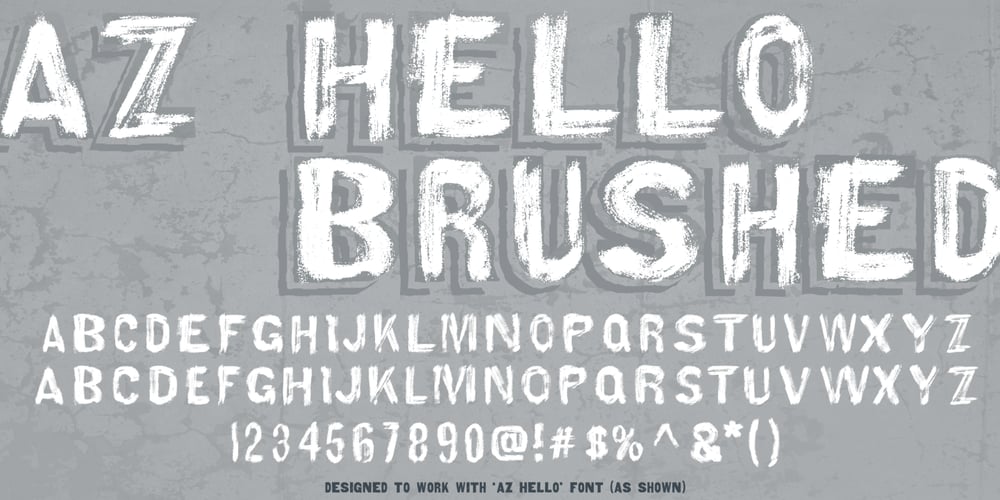
AZ Hello Brushed Font Family was designed by published by Artist of Design. AZ Hello Brushed contains 1 styles and family package options. AZ Hello Brushed font was inspired from old auto repair signs. This font utilizes an “old look” to the line work which is designed to have a “worn feel” to it. It is designed to compliment it’s sister font; AZ Hello. Ideal for use as headline or sub-head text in you design.